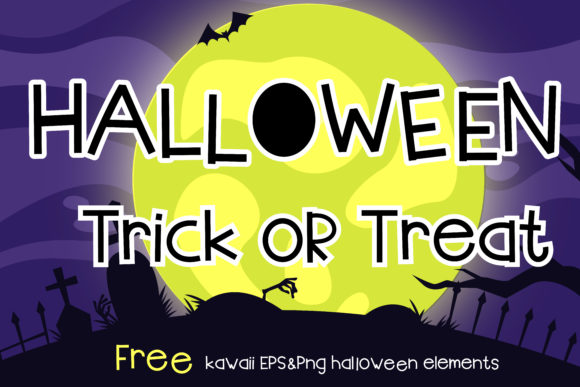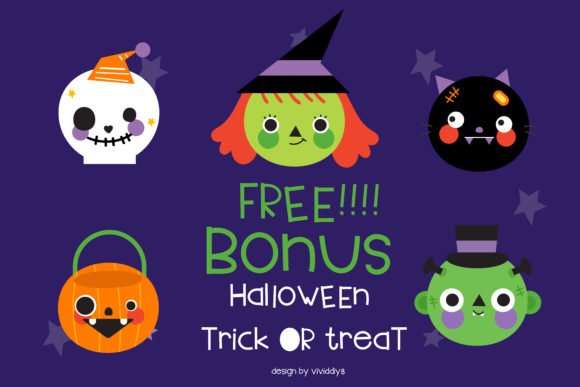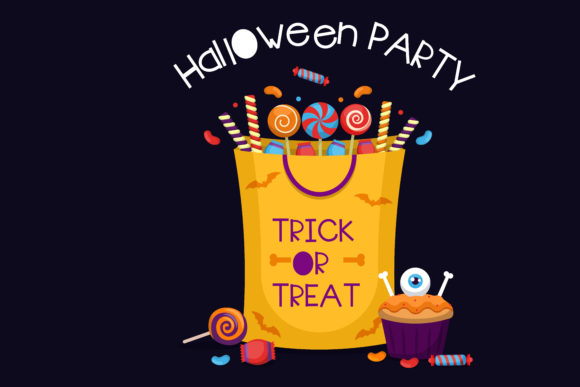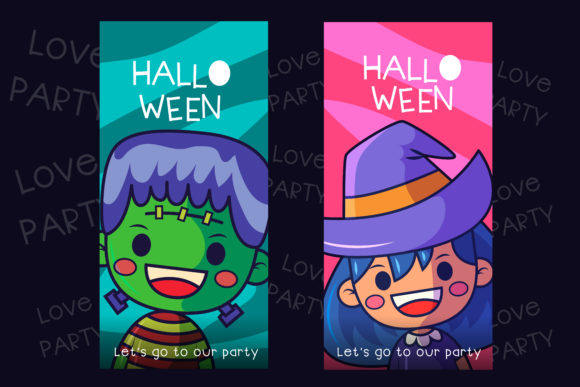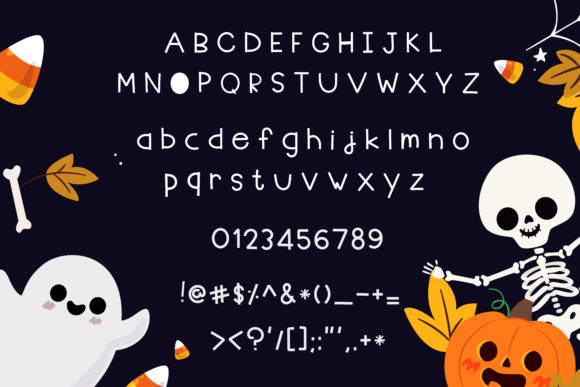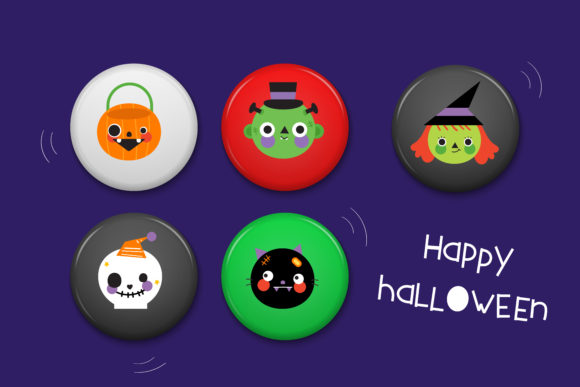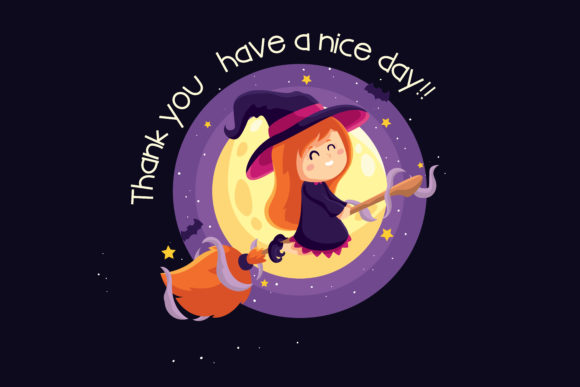
Halloween Party Font
About Halloween Party Font
Halloween Party is a whimsical handwritten font. It brings gorgeous extras. Take your Halloween-themed projects to the next level with this amazing font!